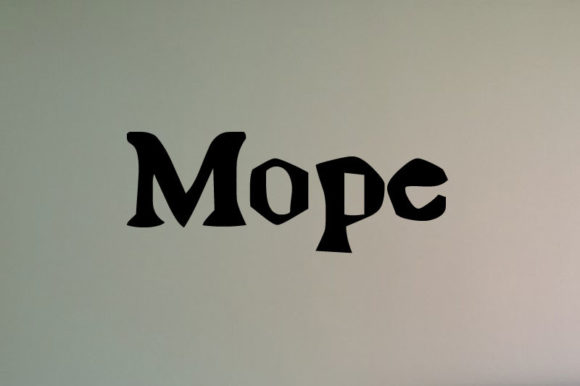
Unleash the Power of Mope: A Display Font That Commands Attention
In the realm of visual communication, fonts hold the power to transform ordinary words into captivating expressions of art. Among the myriad of fonts, Mope emerges as a bold and extraordinary creation, a display font that commands attention with its captivating presence.
Welcome to the world of Mope, a font family specifically crafted to leave an indelible impression. Its bold, eye-catching characters exude an air of confidence and sophistication, making it the perfect choice for those seeking to make a statement. Whether you're a creative professional, a design enthusiast, or simply someone looking to add a touch of flair to your digital creations, Mope is the font that will elevate your projects to new heights.
Crafted with meticulous attention to detail, Mope'sæ¯�個ç†åŠƒ are a testament to its creator's passion for typography. The font's sharp edges and dynamic curves create a captivating visual rhythm that draws the eye and captivates the imagination. Its versatility knows no bounds, as it effortlessly adapts to a wide range of design applications.
Imagine your brand's logo adorned with the bold characters of Mope, commanding attention and leaving a lasting impression on your audience. Envision your t-shirts and sporting designs infused with the energy and style of Mope, making a statement wherever they go. The possibilities are endless, and only limited by your creativity.
With Mope as your font of choice, you'll discover a world of design opportunities, where your ideas take center stage and your creations captivate audiences. Embrace the power of Mope today and unleash your creativity!